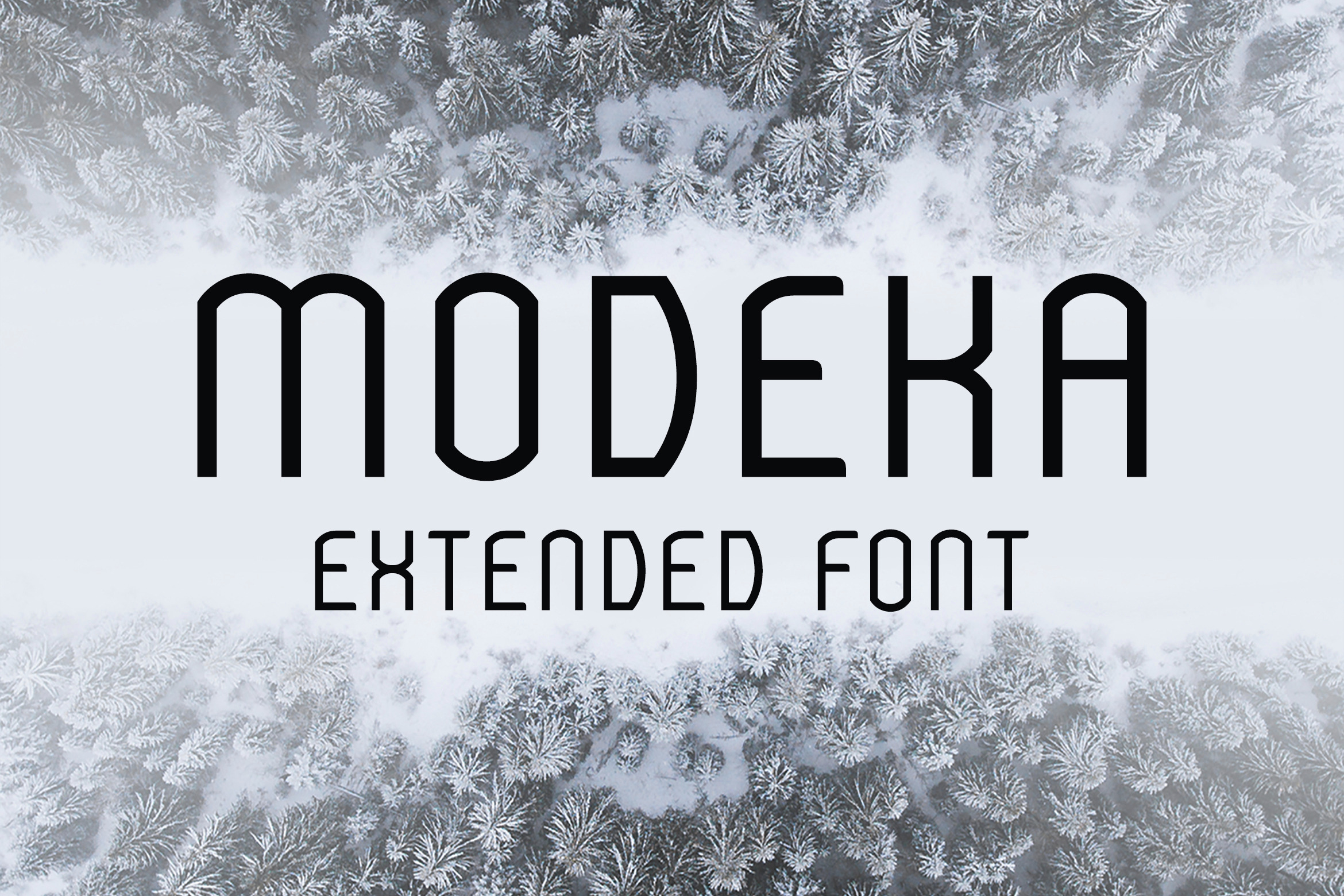
Modeka Extended Font
Modeka extended is a unique style modern font, it comes in two weights regular and bold, it has all the standard latin and latin extended characters. Modeka has a unique style of letters, that will make your designs stand out more than ever